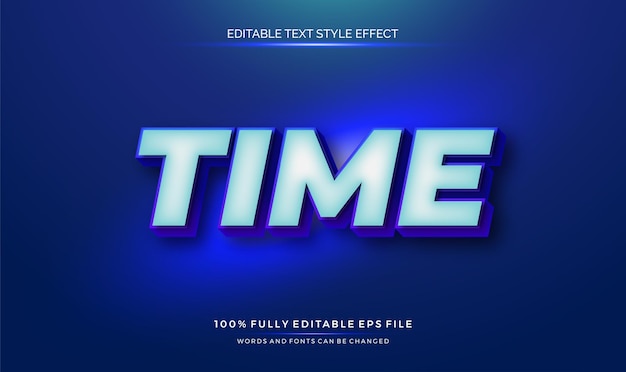
Editable text effect futuristic blue shiny color Text style effect Editable fonts vector files
Modern editable text style effect  . Editable font style.